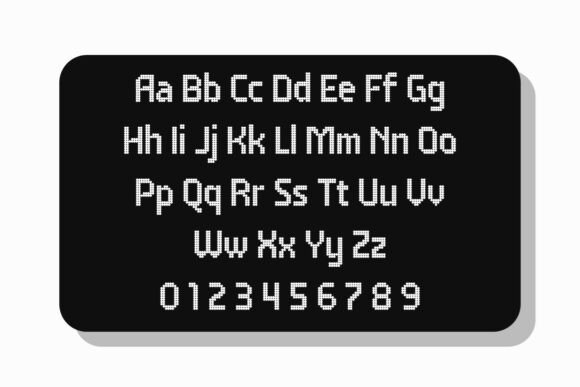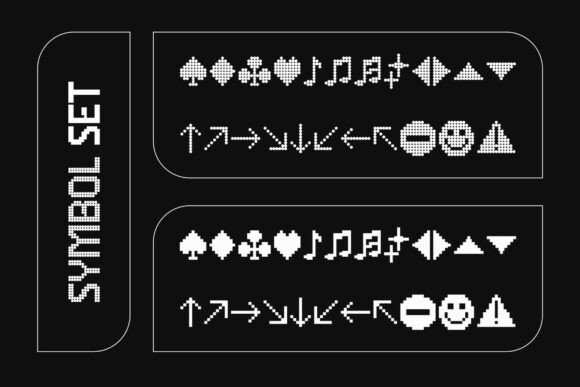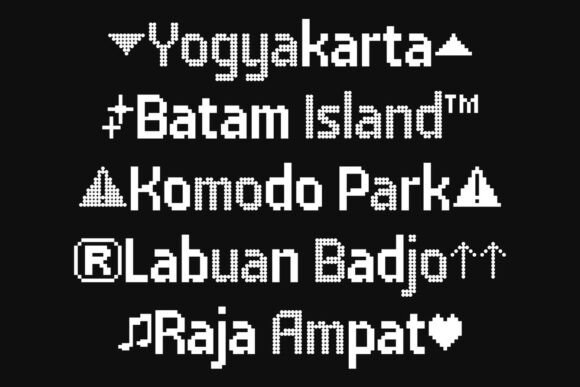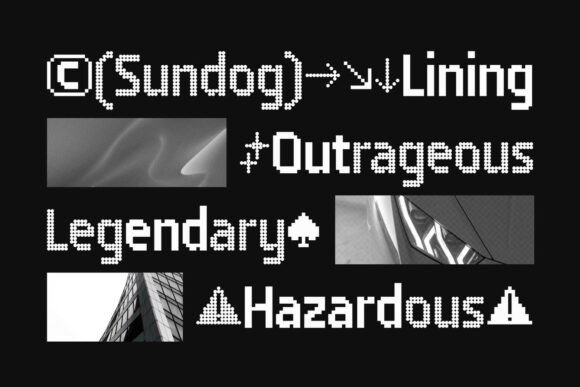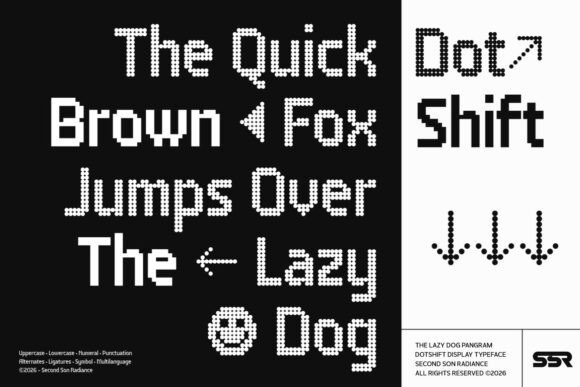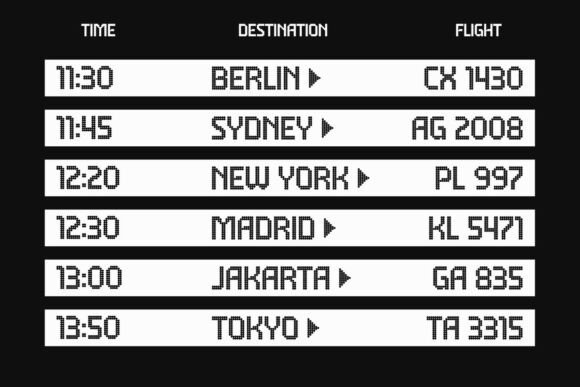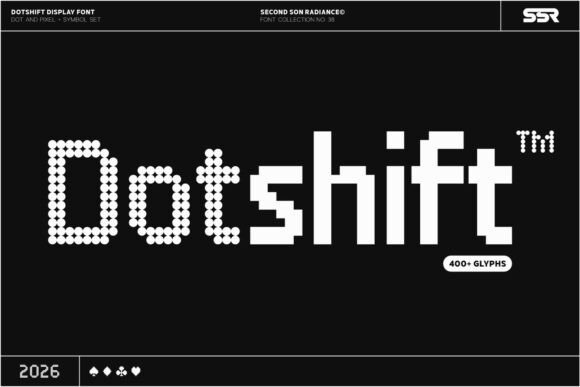
Introducing Dotshift Font: The Ultimate Display Font for Modern Designs
In the world of typography, fonts play a crucial role in conveying the message and aesthetic of a brand or design. For designers and crafters looking for a modern and futuristic font to elevate their projects, Dotshift Font is an excellent choice. This display font is designed with a unique dot and pixel style, making it perfect for a wide range of applications, from digital displays to print materials.
What is Dotshift Font?
Dotshift Font is a carefully crafted display font that features a distinctive dot and pixel style. As its name suggests, this font is designed to shift seamlessly from a dot style to a pixel style, offering versatility and flexibility for designers. With its modern and futuristic look, Dotshift Font is ideal for projects that require a contemporary and eye-catching aesthetic.
Key Features of Dotshift Font
So, what makes Dotshift Font stand out from other fonts? Here are some of its key features:
- Multilingual Support: Dotshift Font includes multilingual characters, making it suitable for designs that require text in different languages.
- Symbols and Glyphs: This font also includes a range of symbols and glyphs, providing designers with a wide range of creative options.
- Dot and Pixel Style: The unique dot and pixel style of Dotshift Font makes it perfect for modern and futuristic designs.
- Versatility: Dotshift Font is designed to be versatile and can be used across various applications, from digital displays to print materials.
Applications of Dotshift Font
Dotshift Font is an excellent choice for a wide range of design projects, including:
- Modern Branding: Use Dotshift Font to create a modern and futuristic brand identity that stands out from the competition.
- Logo Design: The unique dot and pixel style of Dotshift Font makes it perfect for logo designs that require a contemporary look.
- Headlines and Posters: Dotshift Font is ideal for headlines and posters that require a bold and eye-catching font.
- Digital Displays: This font is designed for digital displays, making it perfect for projects such as video games, apps, and websites.
Why Choose Dotshift Font?
So, why should designers and crafters choose Dotshift Font for their projects? Here are some reasons:
- Unique Style: Dotshift Font offers a unique dot and pixel style that sets it apart from other fonts.
- Versatility: This font is designed to be versatile and can be used across various applications.
- Crafted with Love and Precision: Dotshift Font is crafted with love and precision, ensuring that it meets the highest standards of quality.
| Font Name | Dotshift Font |
| Author | Second Son Radiance |
In conclusion, Dotshift Font is an excellent choice for designers and crafters looking for a modern and futuristic font to elevate their projects. With its unique dot and pixel style, multilingual support, and versatility, Dotshift Font is perfect for a wide range of applications, from digital displays to print materials. Whether you’re working on a branding project, logo design, or headline, Dotshift Font is sure to impress.